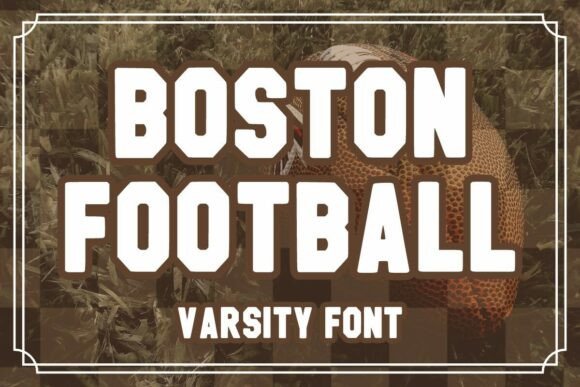
The Winning Design: How Boston Football Font Became My Go-To for Sports-Inspired Projects
I still remember the design project that led me to discover the Boston Football font. I was working on a winter sports-themed branding campaign, and I needed a font that could evoke the nostalgia and confidence of classic collegiate lettering. After hours of searching, I stumbled upon Boston Football, and it was love at first sight! ✨ Its bold, vintage-style varsity design instantly captured the essence of sports aesthetics, and I knew I had found the perfect fit.
So, what makes Boston Football font so special? Here’s what I love about it:
- ✅ Confidence booster: Boston Football exudes a sense of confidence and strength, making it perfect for projects that need a bold statement.
- ✨ Vintage charm: The font’s nostalgic sports aesthetics transport you back to the good old days of varsity jackets and classic athletic typography.
- 🎨 Versatility: From product packaging to apparel designs, event invitations to motivational quotes, Boston Football fits seamlessly into various design projects.
Of course, no font is perfect, and Boston Football has a few minor quirks:
- ⚠️ Limited use in body text: Due to its bold nature, Boston Football works best as a display font, and may not be suitable for lengthy body text.
- 🤔 Some glyph limitations: While the font has a wide range of characters, some users may find the lack of certain special glyphs or diacritics limiting.
The Designer’s Inspiration: A Backstory
Boston Football font was inspired by the classic collegiate typography of the 20th century. Its creator drew from the nostalgic world of sports aesthetics, combining vintage charm with modern flair. The result is a font that embodies the confidence and energy of sports culture.
Q: What type of projects is Boston Football best suited for?
A: Boston Football excels in projects that require a bold, confident, and nostalgic sports-inspired aesthetic, such as winter and holiday-themed branding, product packaging, apparel designs, event invitations, and motivational quotes.
Q: Is Boston Football a script font?
A: No, Boston Football is a bold, sans-serif display font with a varsity-inspired design.